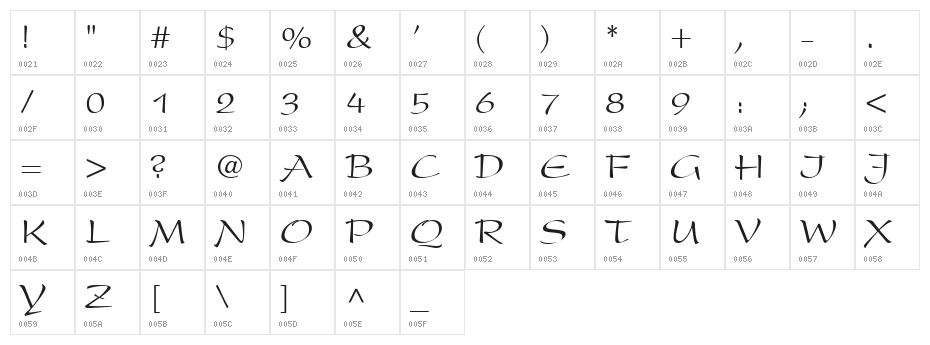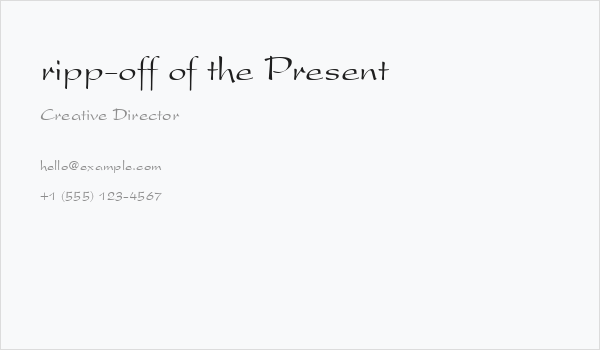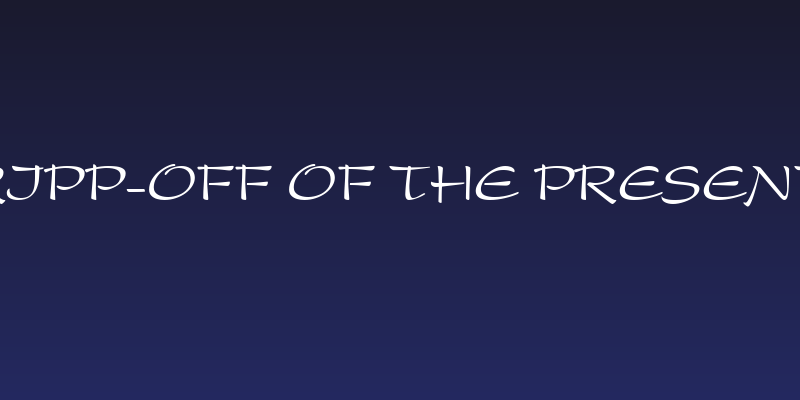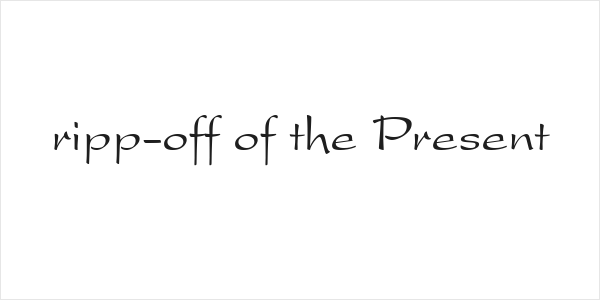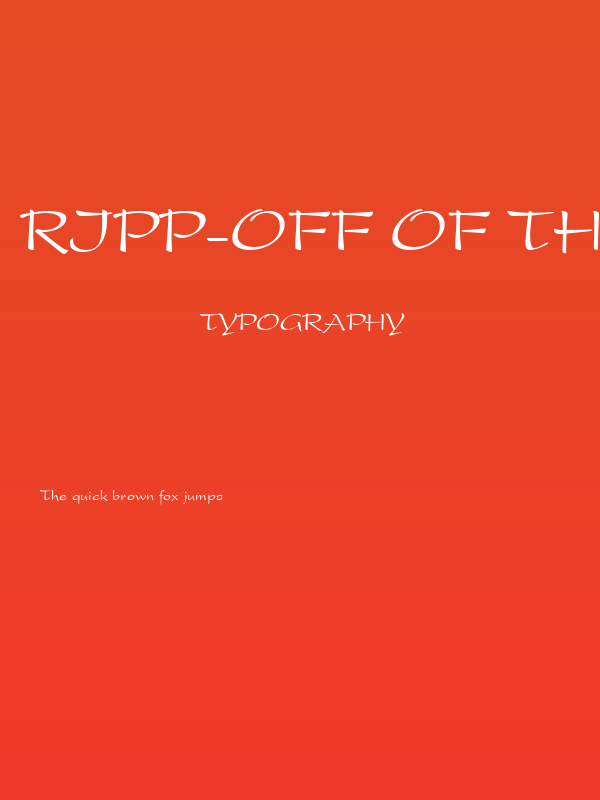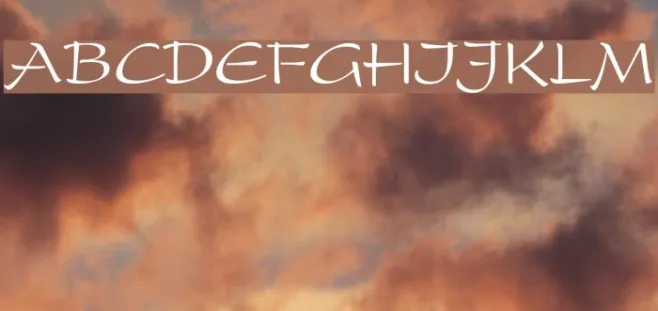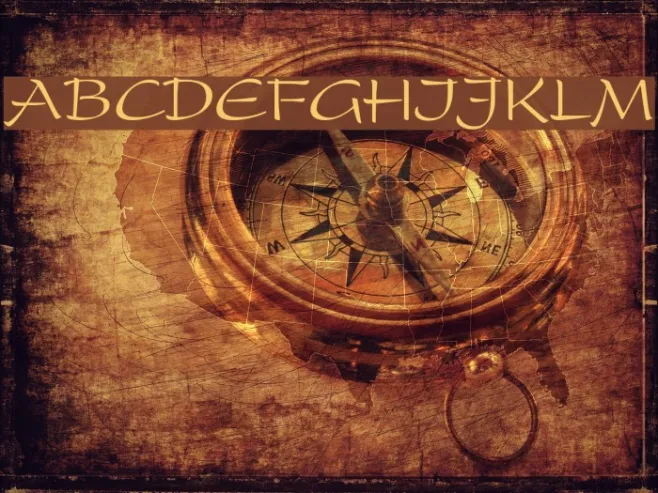
ripp-off of the Present Font
ripp-off of the Present Description
This font features a unique blend of elegance and playfulness, characterized by its flowing, cursive-like strokes that give it a handwritten feel. The uppercase letters are slightly more structured, maintaining a balance between formality and creativity. The lowercase letters exhibit a more pronounced cursive style, with smooth curves and varying stroke widths that add a dynamic quality to the text. The numerals are consistent with the overall style, maintaining the same fluidity and elegance. Special characters are thoughtfully designed to complement the alphabet, ensuring a cohesive appearance across all text elements. This font's distinct style makes it suitable for projects that require a personal touch or a sense of sophistication.
| Overall Style | Elegant, Playful |
| Proposed Projects | Ideal for wedding invitations, greeting cards, personal branding, and creative projects that require a touch of elegance. |